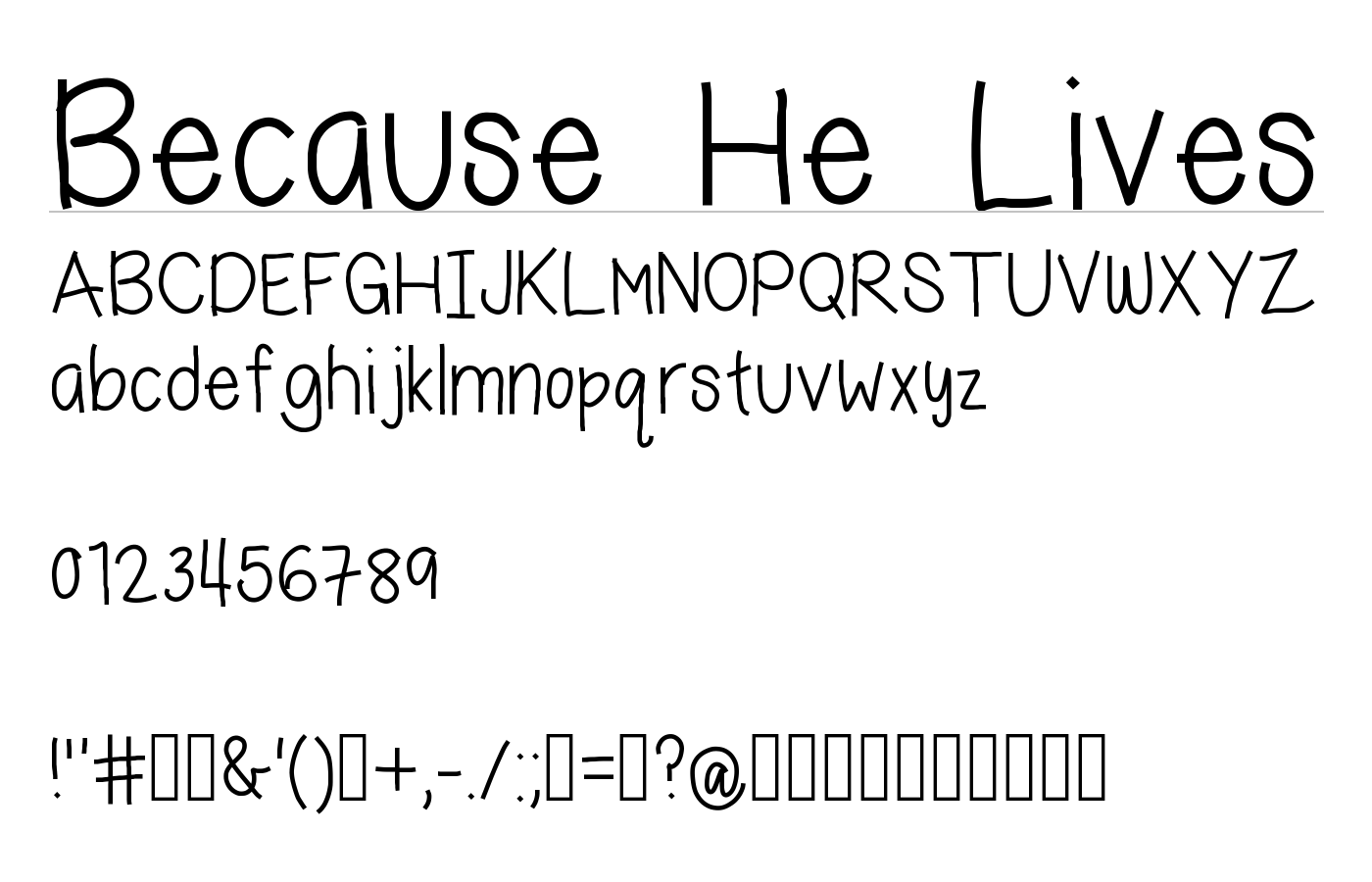
Because He Lives is a playful and casual handwritten sans serif font with thin, slightly uneven strokes that give it a friendly, approachable feel. Its tall x-height and simple shapes make it easy to read in both uppercase and lowercase, ideal for informal, creative projects like children's books, greeting cards, or relaxed branding. This font works best where a personal, warm touch is needed to connect with the audience in a sincere, down-to-earth way.
Because He Lives Font
About Because He Lives Font